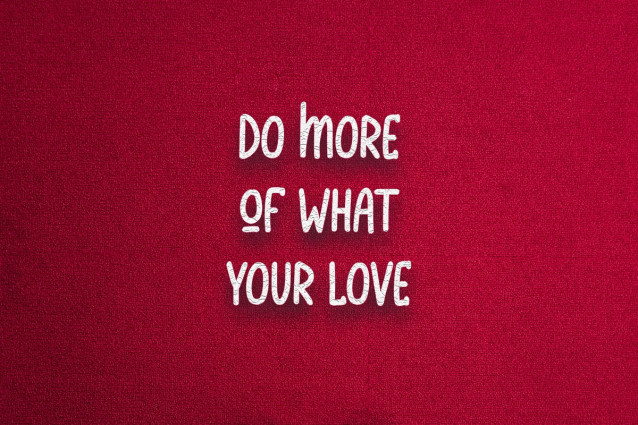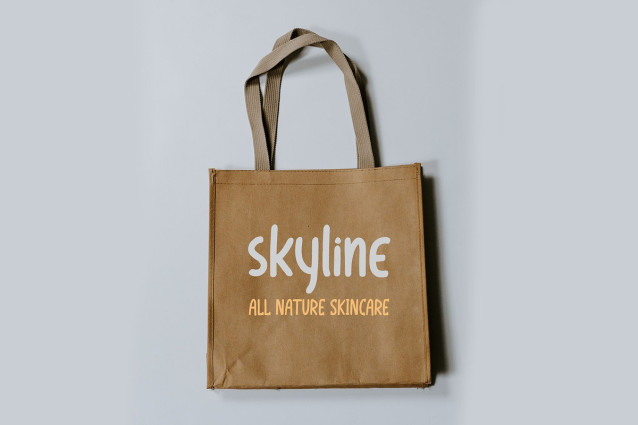
Bionle Font
Bionle Font is a handwriting font with minimalist style. Is a font style that is made with unique shapes font characters are really good. Can be applied to support the graphic appearance of the product to be more attractive.